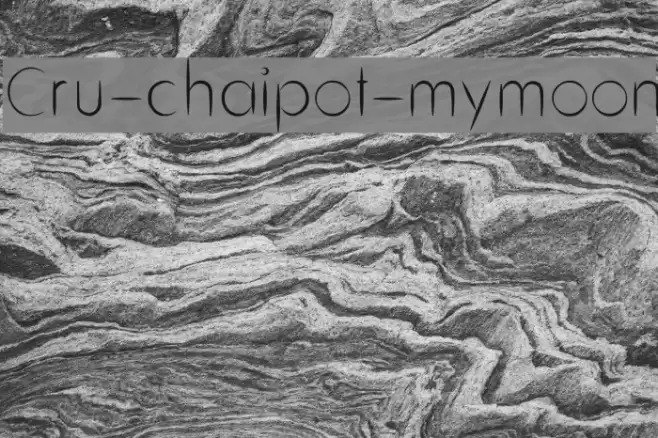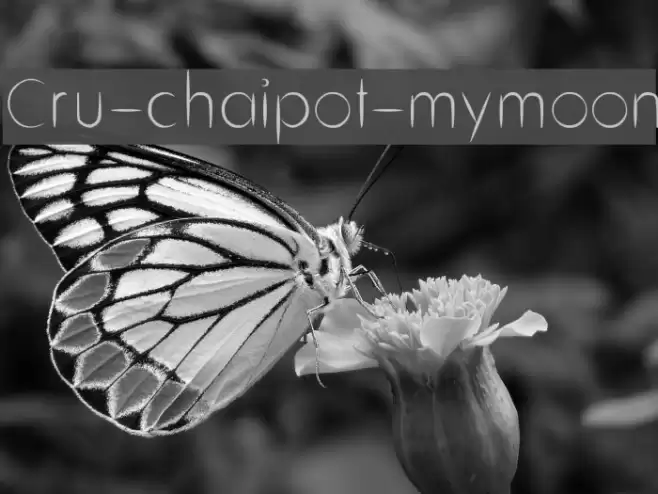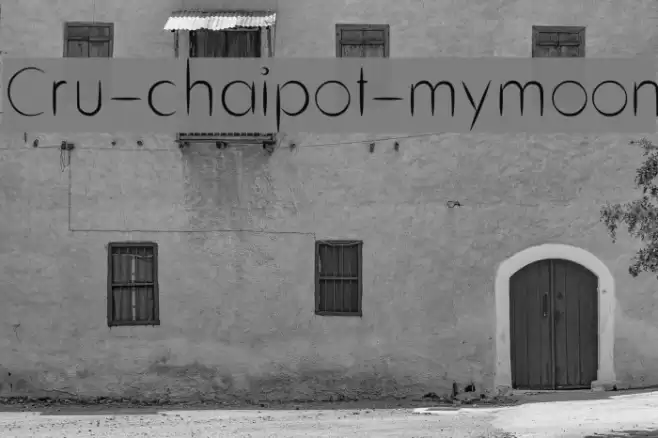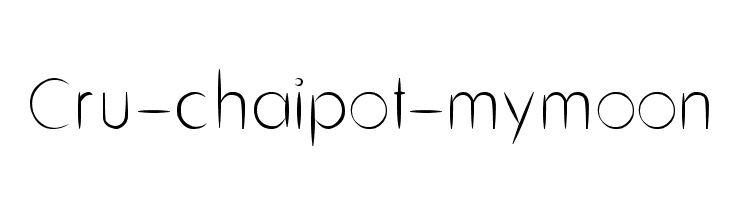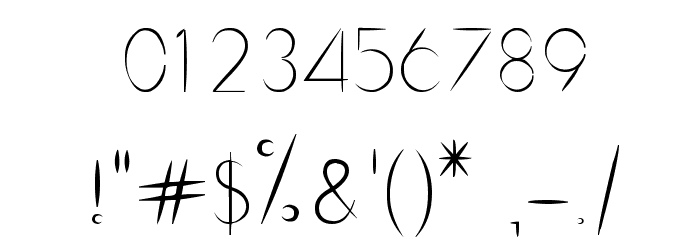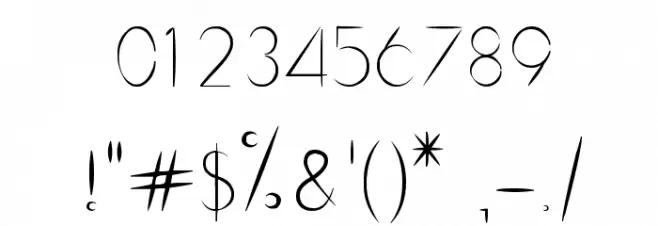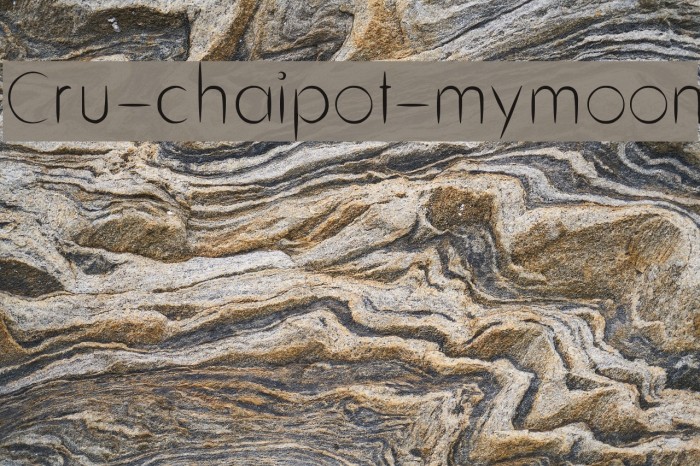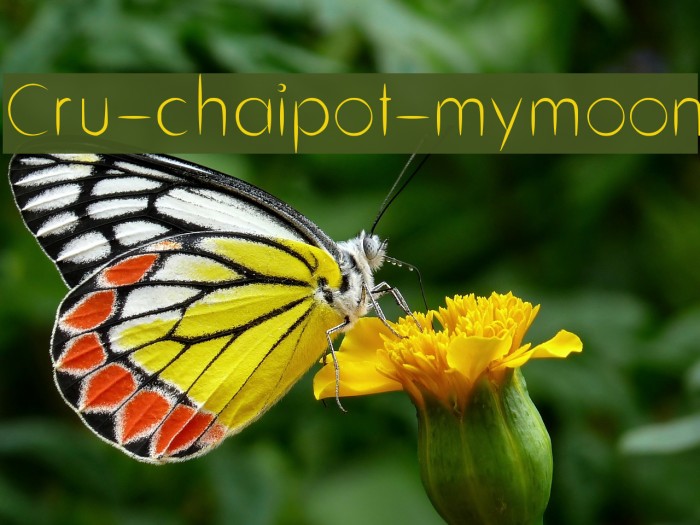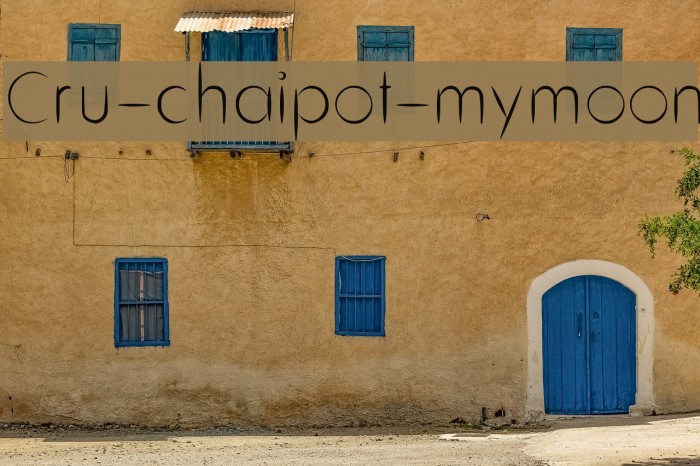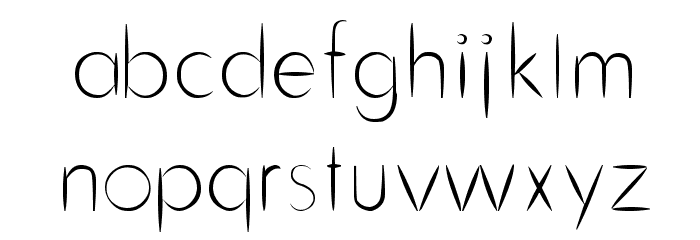
Cru-chaipot-mymoon Font
Cru-chaipot-mymoon Description
This font features a unique and artistic design with a modern flair. The characters are slender and elongated, giving them an elegant and sophisticated appearance. The strokes are thin with a high contrast between thick and thin lines, which adds a dynamic and stylish touch. The uppercase letters are tall and narrow, while the lowercase letters maintain a consistent flow with subtle curves. The numerals are distinct and maintain the same slender style, ensuring readability. Special characters are creatively designed, complementing the overall aesthetic. This font is perfect for projects that require a touch of elegance and modernity.
A modern, elegant font with slender, high-contrast characters from Uncategorized fonts.
- Proposed Projects: Ideal for fashion magazines, luxury branding, wedding invitations, and high-end product packaging.
- Weight: Light
- Overall Style: Modern, Elegant
- Use Case: Headlines, Logos, Invitations